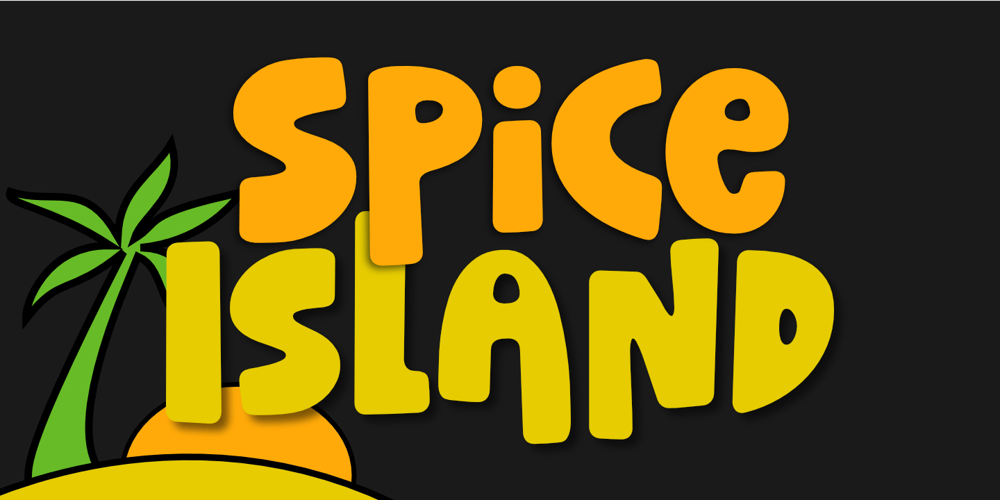
Spice Island
Spice Island font
Spice Island Font Family was designed by Aldy Sidik and published by Epiclinez. Spice Island contains 1 styles and family package options. Spice Island is a bold, fun, and playful comic font perfect for adding a touch of whimsy to your designs. A strong, expressive typeface, Spice Island immediately grabs attention with its bold and fun design. Its playful curves and rounded corners add a touch of whimsy, making it perfect for a wide range of design projects, from playful to bold. Despite its playful appearance, Spice Island is still easily read, even in large sizes. This makes it ideal for creating eye-catching headlines and memorable logos. Whether designing a playful product brand, a bold advertisement, or a captivating movie title, Spice Island is the perfect font to add a touch of fun and personality to your project.Spice Island features : Standard Latin Numbers, symbols, and punctuations Multilingual Support. Fully accessible without additional design software Simple Installations Works on PC & Mac Thank You